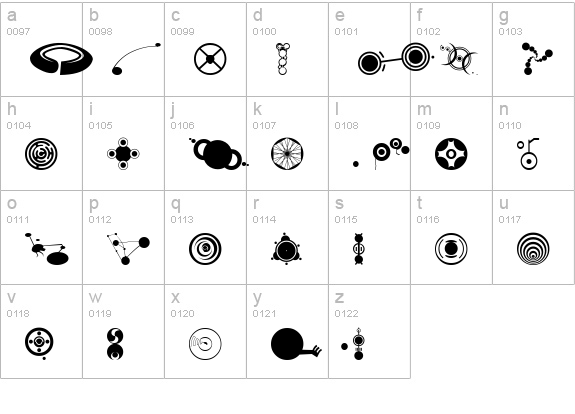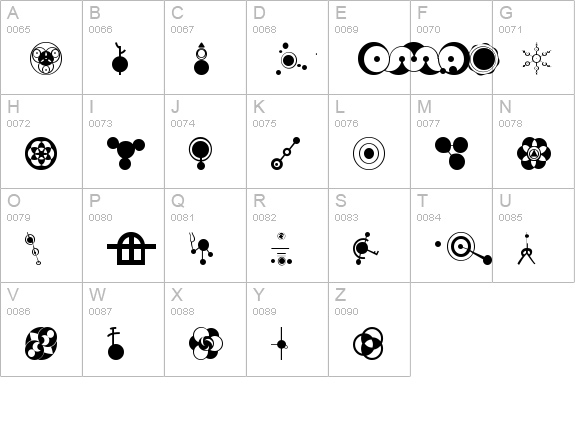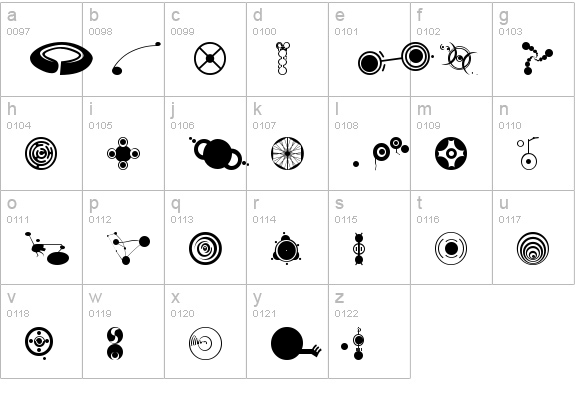
CropBats AOE Font Details
CropBats AOE font is a unique and versatile typeface that is perfect for adding a touch of creativity to your projects. With its bold and eye-catching design, CropBats AOE font is sure to make a statement. This font features a variety of crop-themed symbols and icons that are perfect for use in a wide range of design projects. What sets CropBats AOE font apart is not only its striking design, but also the fact that it is freely available to download at FontsMarket.com. This means that you can easily access this font and use it in your projects without any cost. Whether you're working on a branding project, creating social media graphics, or designing a poster, CropBats AOE font is sure to add a unique and engaging touch to your designs. Download CropBats AOE font today and let your creativity shine!